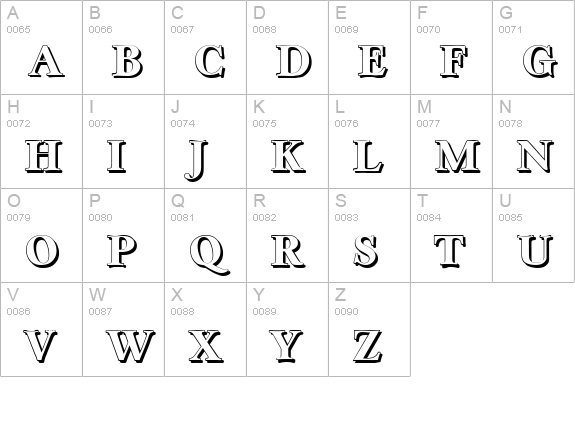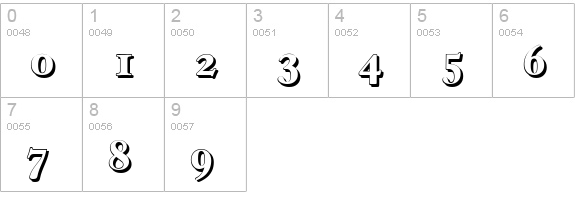
CasablancaShadow-Xbold-Regular Font Details
CasablancaShadow-Xbold-Regular is the standard, neutral variant in the CasablancaShadow typeface family \xE2\x80\x94 well suited to general body text, paragraphs, and standard typographic work.